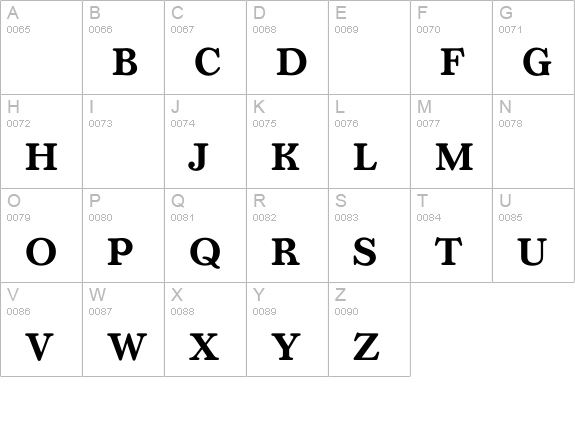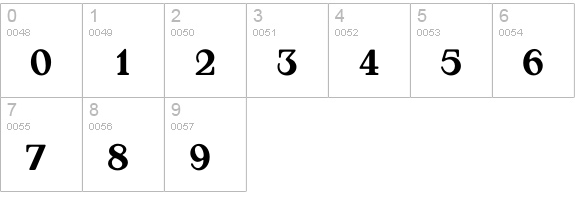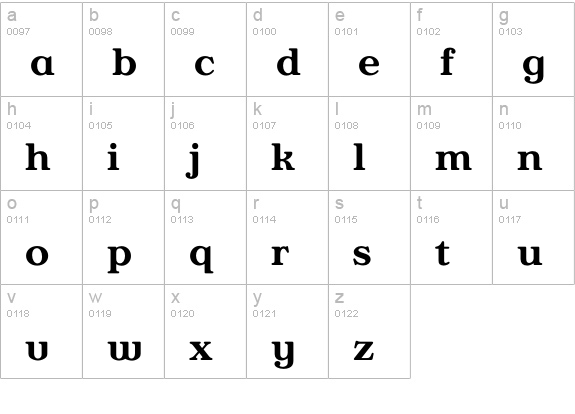
AppleyardMedium Font Details
AppleyardMedium font is a versatile and elegant typeface that strikes the perfect balance between sophistication and readability. Its clean lines and classic design make it suitable for a wide range of projects, from branding to editorial design. With its medium weight, it exudes a sense of modernity and professionalism. The best part? AppleyardMedium font is available for free download at FontsMarket.com. This means you can easily access and use this high-quality font in your creative endeavors without any cost. Whether you're working on a print project or a digital design, AppleyardMedium font will add a touch of refinement and style to your work. Download it today and elevate your typography game with this exquisite typeface.